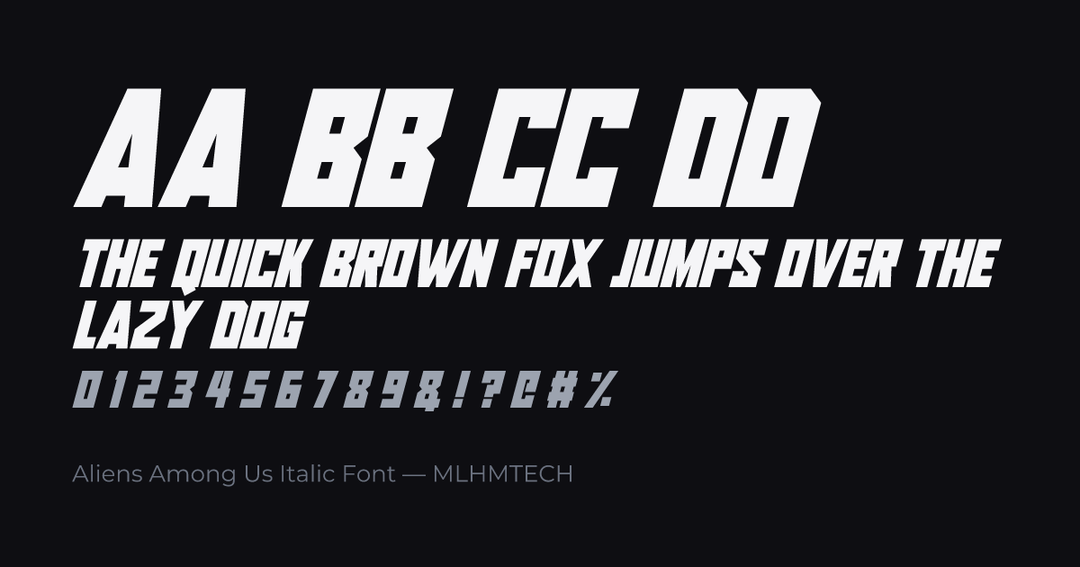
Aliens Among Us Italic Font
Aliens Among Us Italic is a distinctive display font with an otherworldly, quirky feel. Ideal for sci-fi themes, posters, and creative titles.
Aliens Among Us Italic is a handpicked font that brings a unique, alien-inspired aesthetic to your projects. Its italic slant and irregular letterforms evoke a sense of mystery and otherworldliness, making it perfect for sci-fi designs, event posters, or any creative work that needs a touch of the unusual.